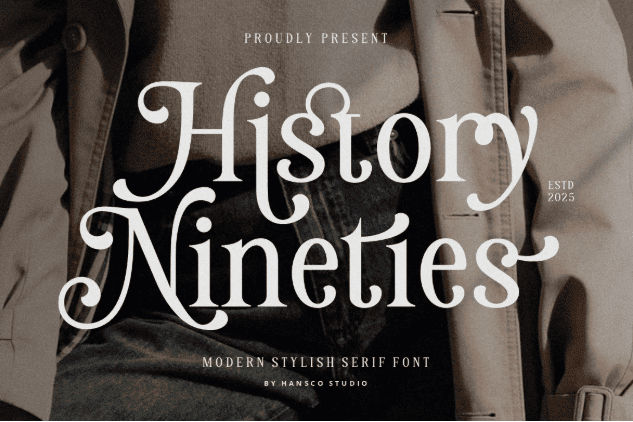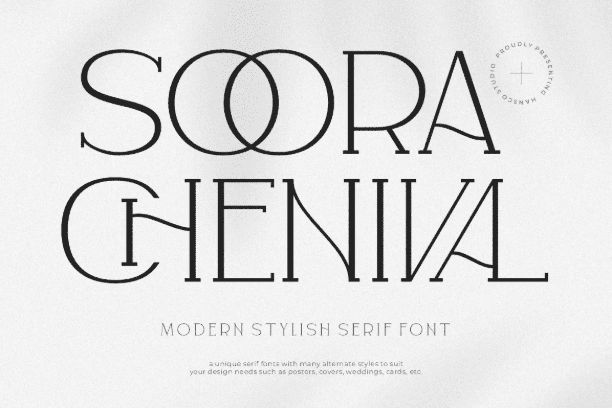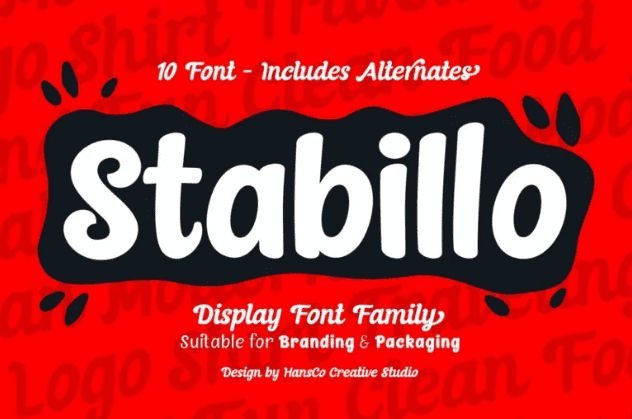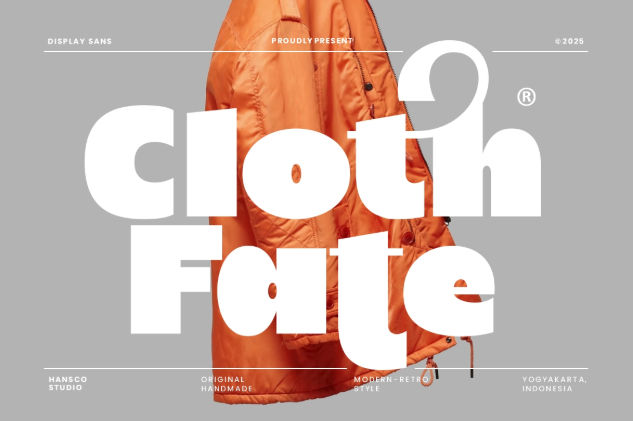
20 Best Fonts for Presentations That Keep Slides Clear
A great presentation can fail or shine because of one simple choice: typography. The best fonts for presentations don’t just look good; they shape clarity, confidence, and persuasion, turning ordinary slides into compelling visual conversations your audience remembers.
In this article, we will help you choose the right typeface and introduce the 20 best fonts to create stunning presentations, carefully curated to elevate your slides. Let’s explore them!
Key Takeaways:
• For presentations, consider clarity, professionalism, and personality.
• Fonts help presentations feel confident, cohesive, and persuasive.
• Different font styles influence credibility, readability, and the overall character of a presentation.
5 Ways to Choose the Best Fonts for Presentations
While taste matters, understanding how to choose the right font for your presentation also involves clarity, credibility, and how confidently your message is received. Thoughtful typography helps ideas feel structured, persuasive, and easy to follow. Use the principles below to guide your font selection.
• Understanding your audience: Choose fonts that fit your audience’s expectations and context.
• Prioritizing readability: Use fonts that stay clear and legible at a distance.
• Building a clear contrast and hierarchy: Adjust scale and emphasis to create a clear reading order.
• Matching the brand or theme: Align fonts with the presentation’s purpose and identity.
• Keeping it simple and accessible: Limit font choices and maintain clear spacing.
Serif Fonts for Presentations
Serif fonts bring structure, credibility, and a classic tone that works well for formal presentations. Suitable for academic, corporate, and slightly artsy personalities.
1. Mekuria Salten
Mekuria Salten delivers a classic, retro serif with soft elegance. This font can immediately grab attention while maintaining readability, making it exceptional for titles and headings.
2. History Nineties
History Nineties leans toward clarity more than ornaments. This serif font presents a modern take on the serif style, combined with wilder, unpredictable swirls.
3. Magic Seventies
On the regular option, Magic Seventies delivers tall letters with modern, classic visuals. When exploring its ligature and alternates, you can project artsy and magical vibes.
4. Latest Perfectly
With Latest Perfectly, you can evoke luxury and professionalism in your presentations. This display serif font family grants you the perfect arsenal for a cohesive design.
5. Soora Chenival
Soora Chenival is among the best fonts for presentations to complement the other bulky typefaces. Its thin strokes and wide letterforms maintain its presentability without overwhelming your slides.
6. Romla
Romla is bolder and has more performative letterforms than the typical serif fonts. Its wide letters take up more space in your slides and easily assert dominance with elegance.
7. Berlys
If you want a more stylish typeface, definitely use Berlys. This serif font elegantly merges the tall, classic look with unique, stretchy, and flowy touches, especially for the uppercase letters.
Sans Serif Fonts for Presentations
Sans-serif fonts are favored for their clean, clear readability. They feel neutral yet confident, making them ideal for business decks, startups, and fast-paced presentations.
1. Redotic
Redotic is the perfect depiction of simplicity meets artsy in a typeface. With its clean, simple letterforms, Redotic can present equally astounding playfulness without compromising legibility.
2. Chales Rientta
Chales Rientta masterfully captures vintage style in a more modern sans-serif font. Its unique ligature options add a playful taste to your casual presentations.
3. Milky Bun
Milky Bun is another unique typeface in the retro sans-serif font style. This one belongs among the best fonts for presentations for its unapologetically thick letters and lively persona.
4. Bochan
Bochan is a sans-serif font that utilizes ornaments until it becomes psychedelic. There is a regular version, but the alternate set is where you can add flavor.
5. Stabillo
When you’re looking for a more presentable font, grab Stabillo. This font maintains a simple visual while subtly evoking excitement, allowing for a versatile use.
6.  Cloth Fate
Cloth Fate is a bold sans-serif font with a bulky visual. Its irregular proportion allows for a more fluid design without compromising legibility.